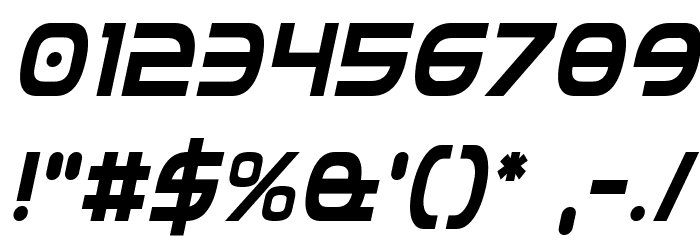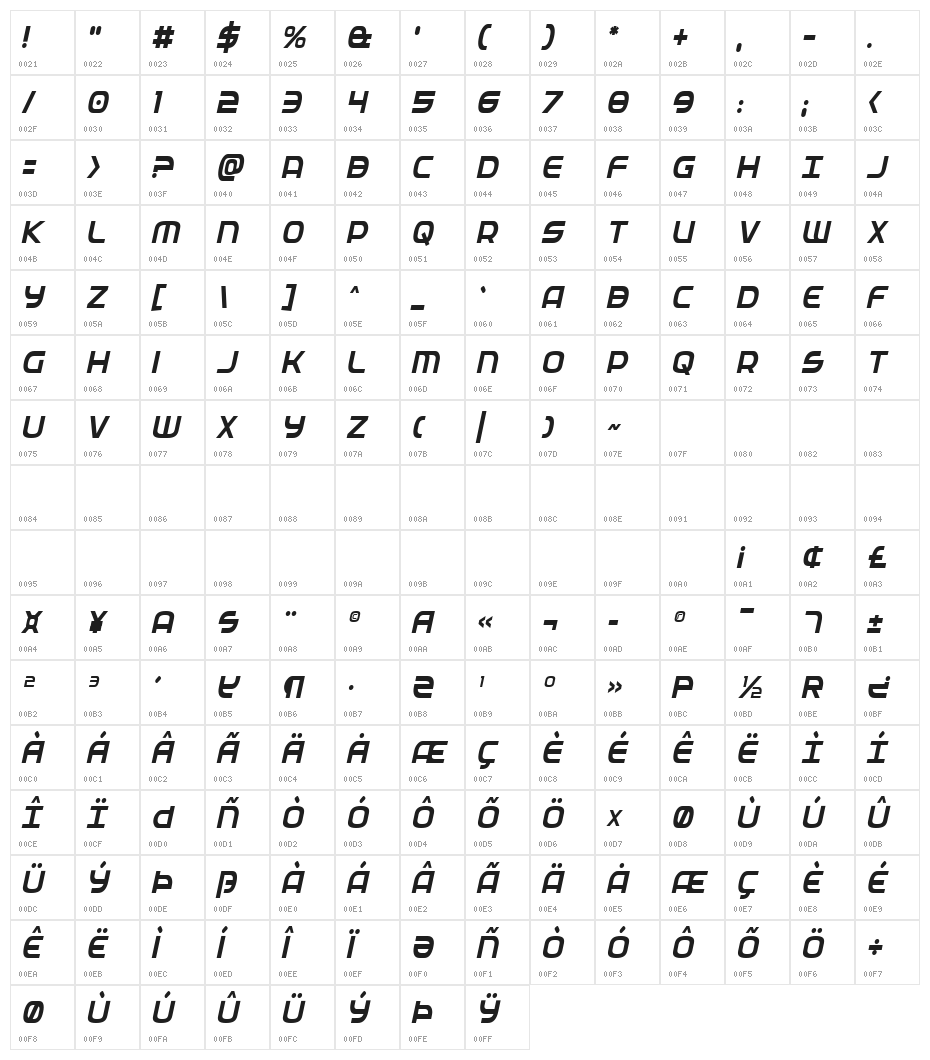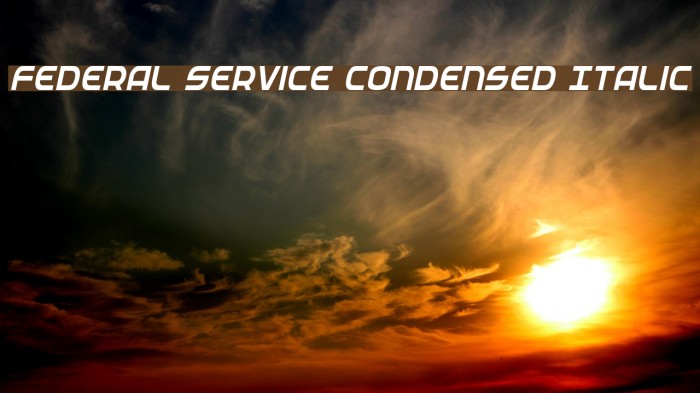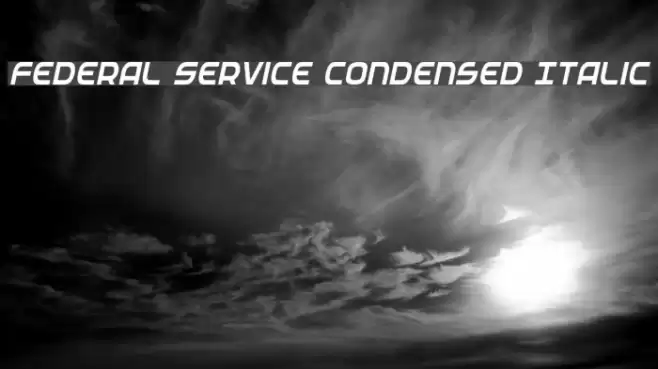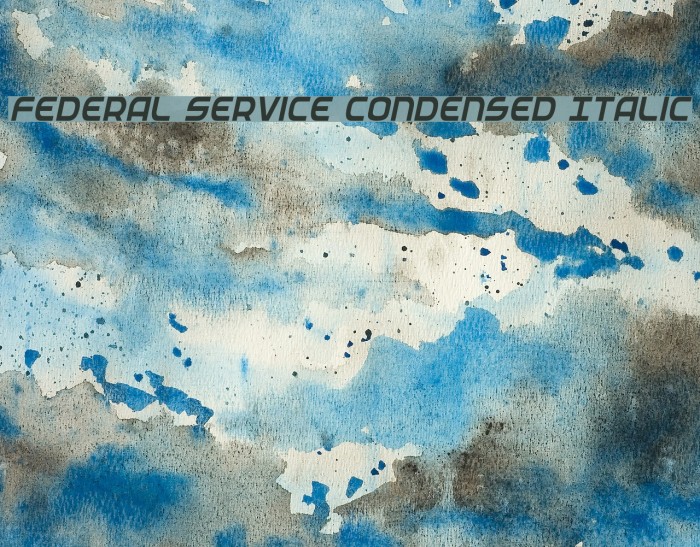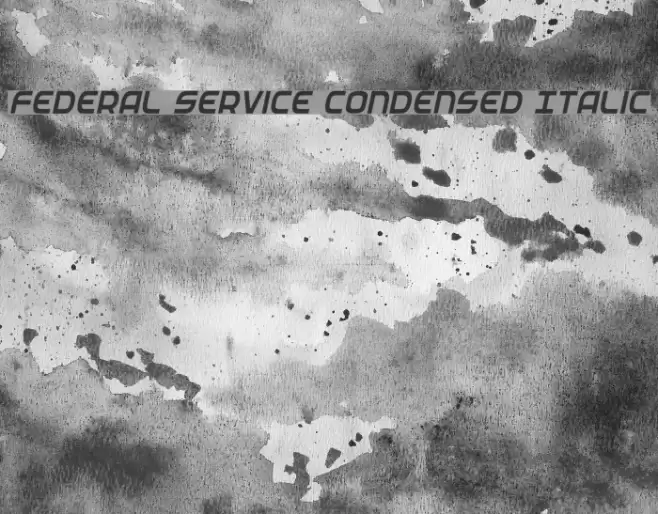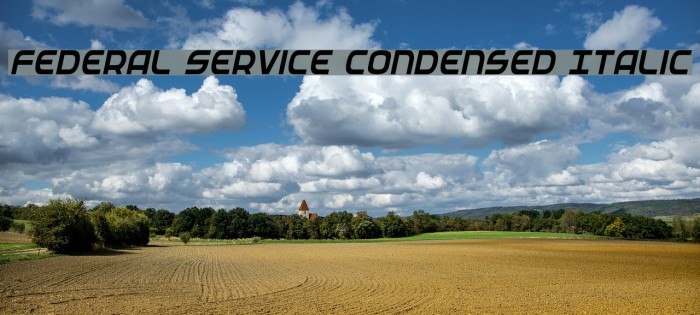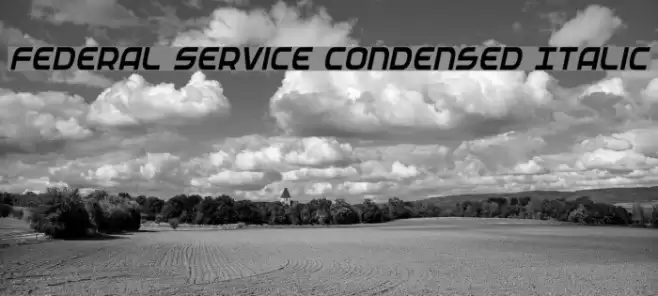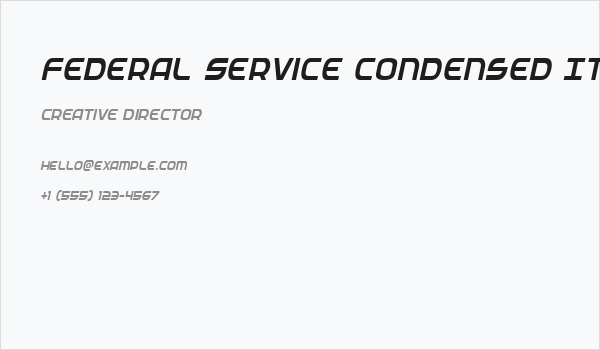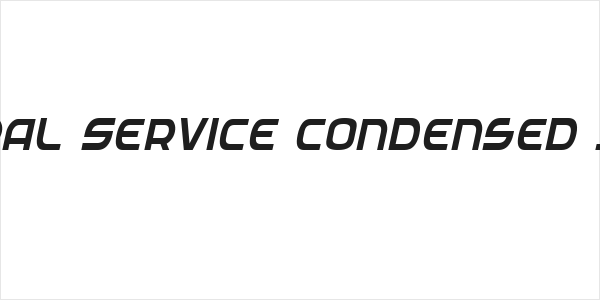
Federal Service Condensed Italic Font
Federal Service Condensed Italic Description
This font features a modern, streamlined design with a condensed and italicized style. The characters are slightly slanted, giving a sense of motion and dynamism. The strokes are consistent in weight, providing a uniform appearance across all characters. The font maintains a clean and professional look, suitable for various applications. The spacing between characters is tight, enhancing its compact and efficient design. The numerals and special characters are designed to match the overall aesthetic, ensuring visual harmony throughout.
| Proposed Projects | Ideal for use in branding, advertising, and editorial design where a modern and professional look is desired. Suitable for headlines, posters, and digital interfaces. |